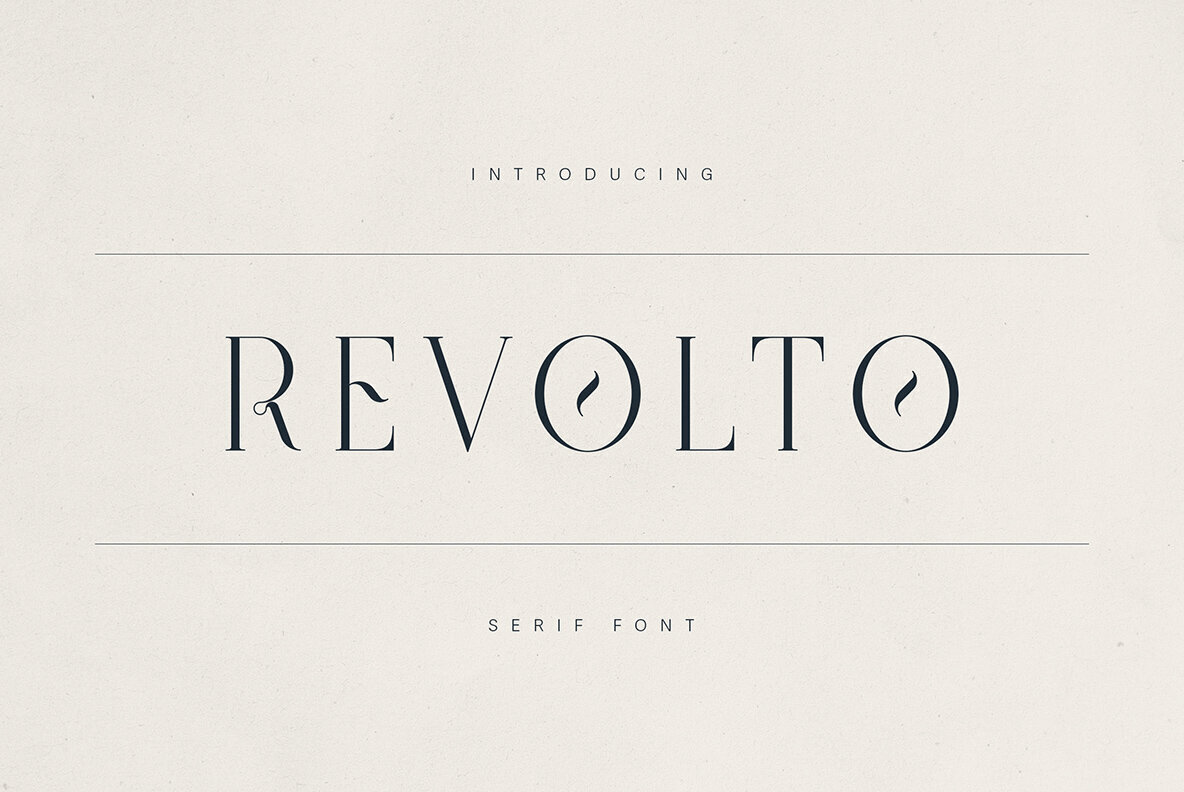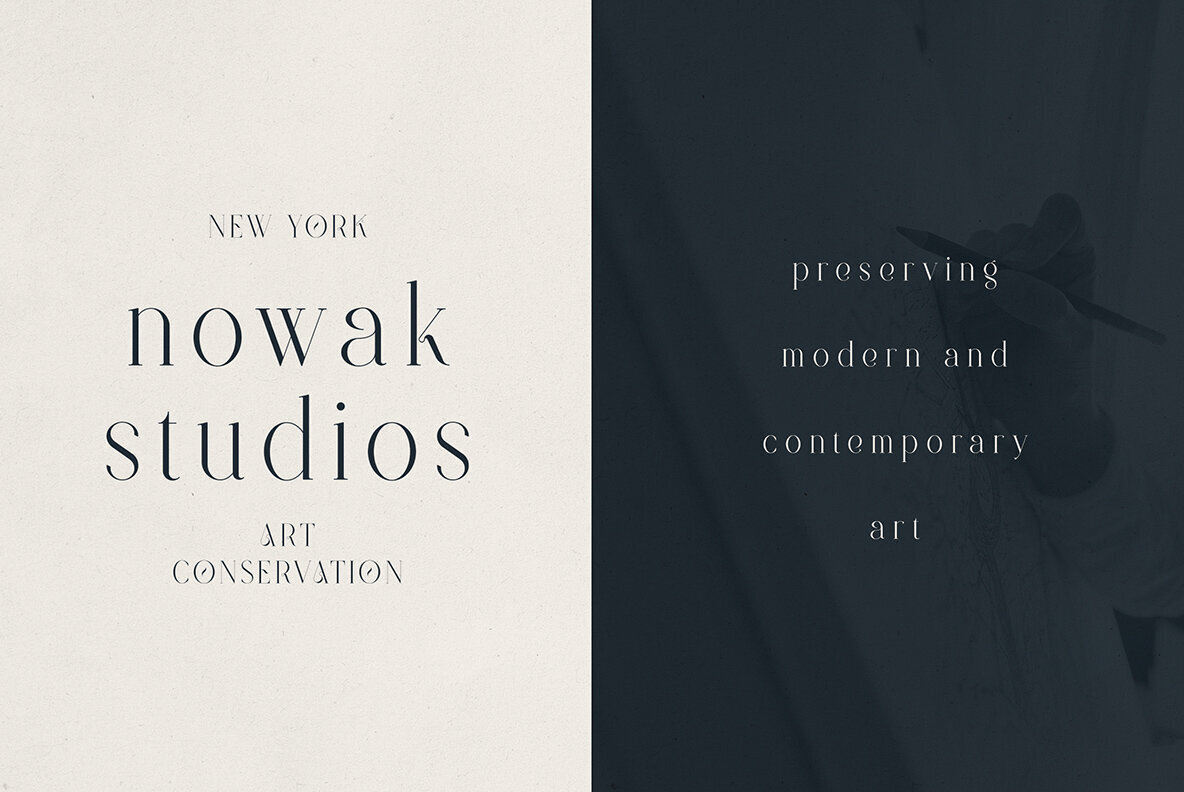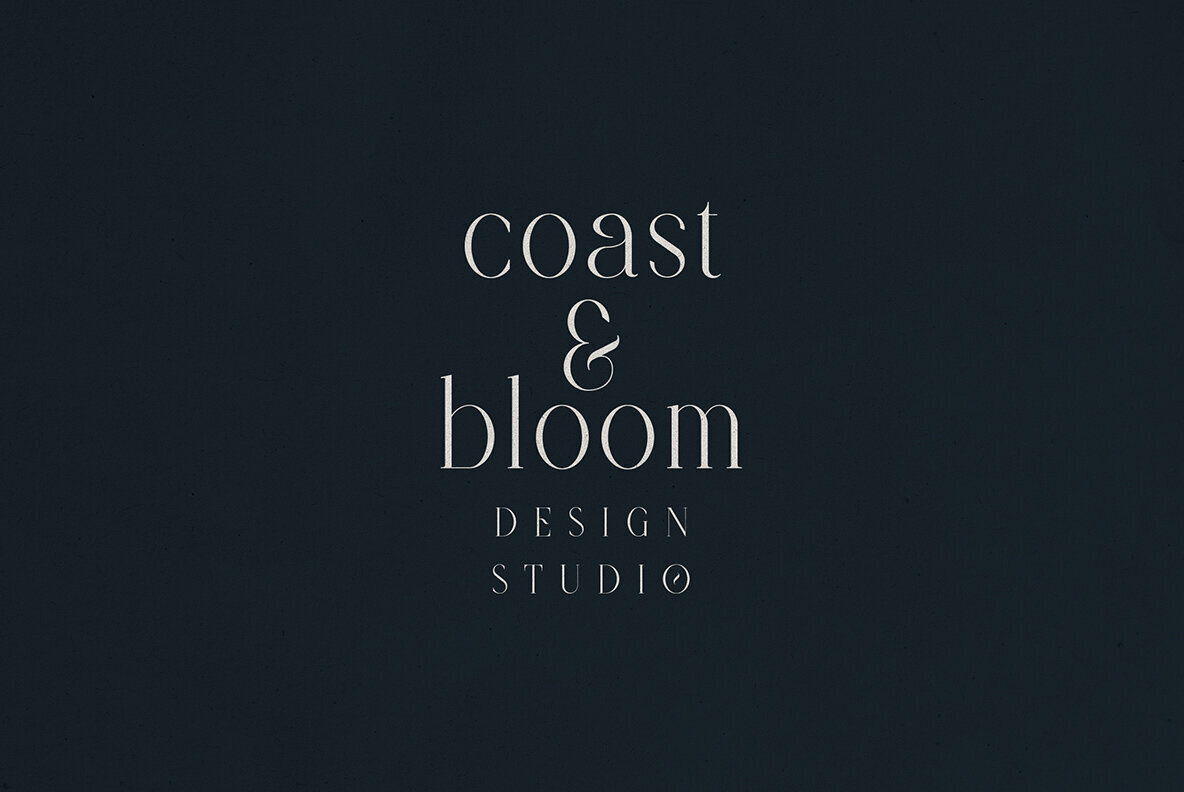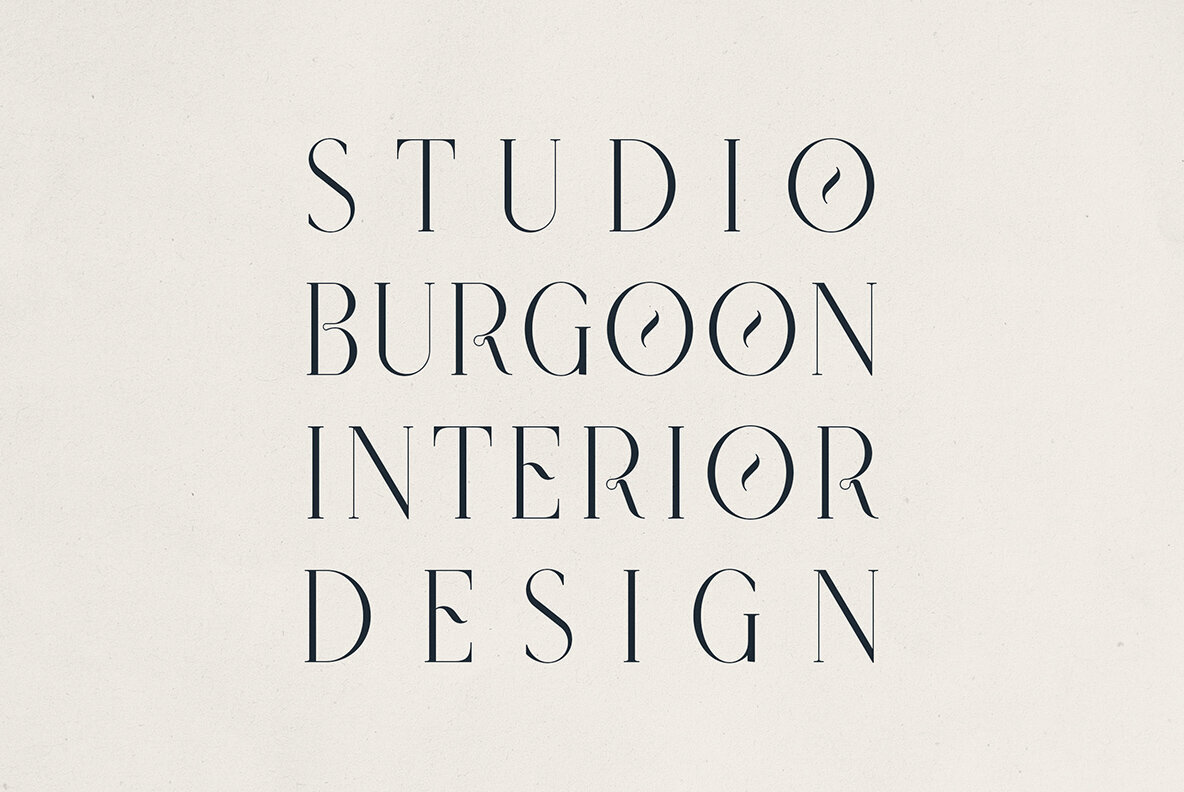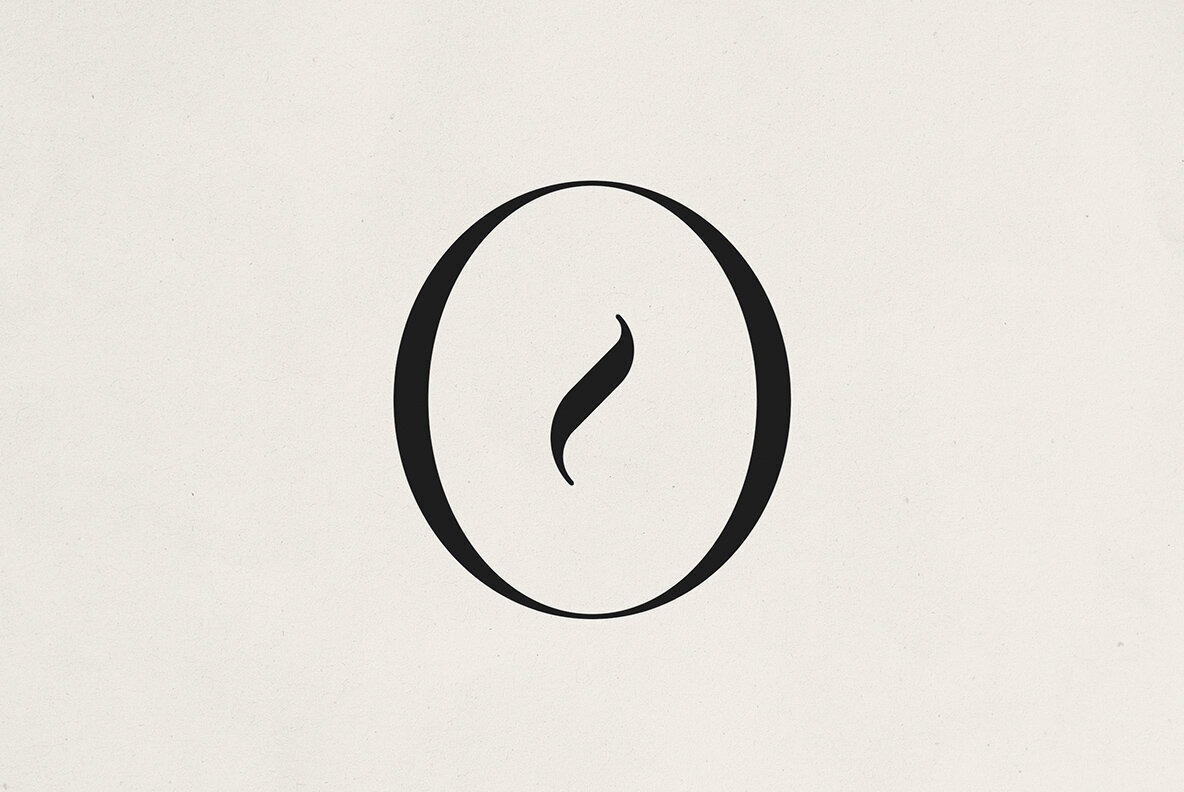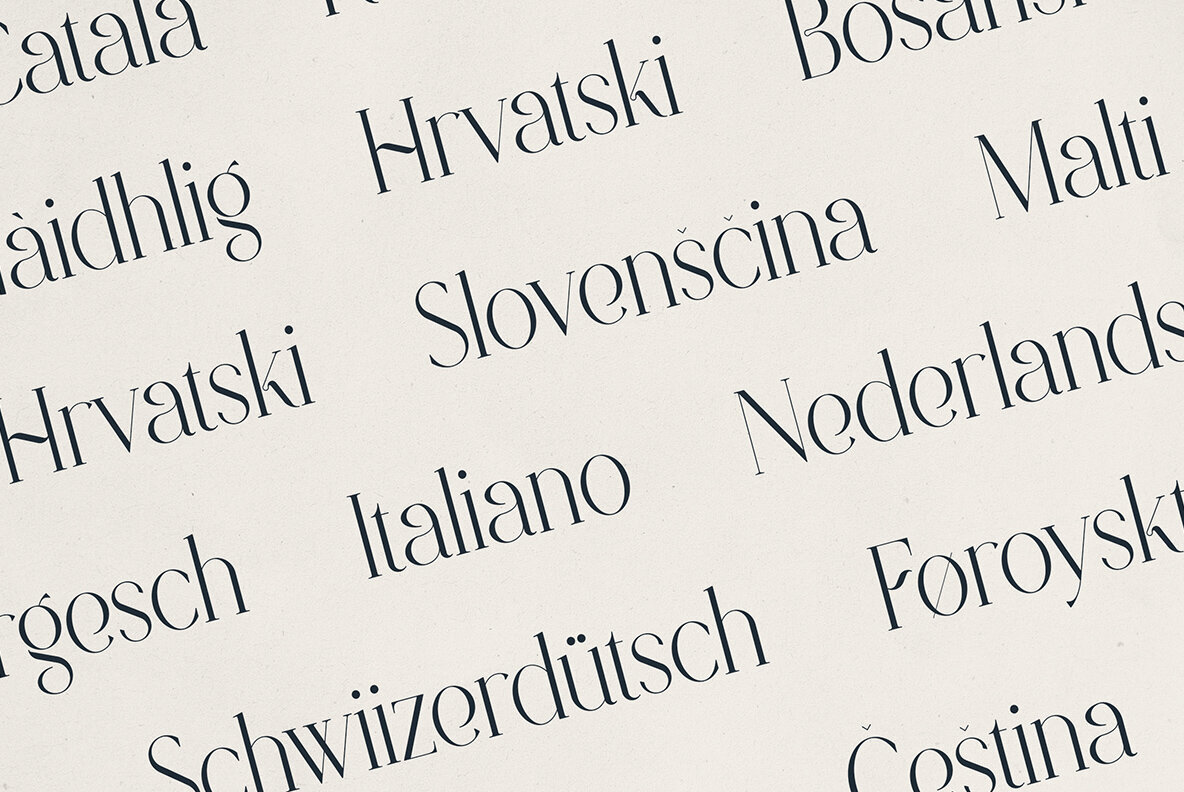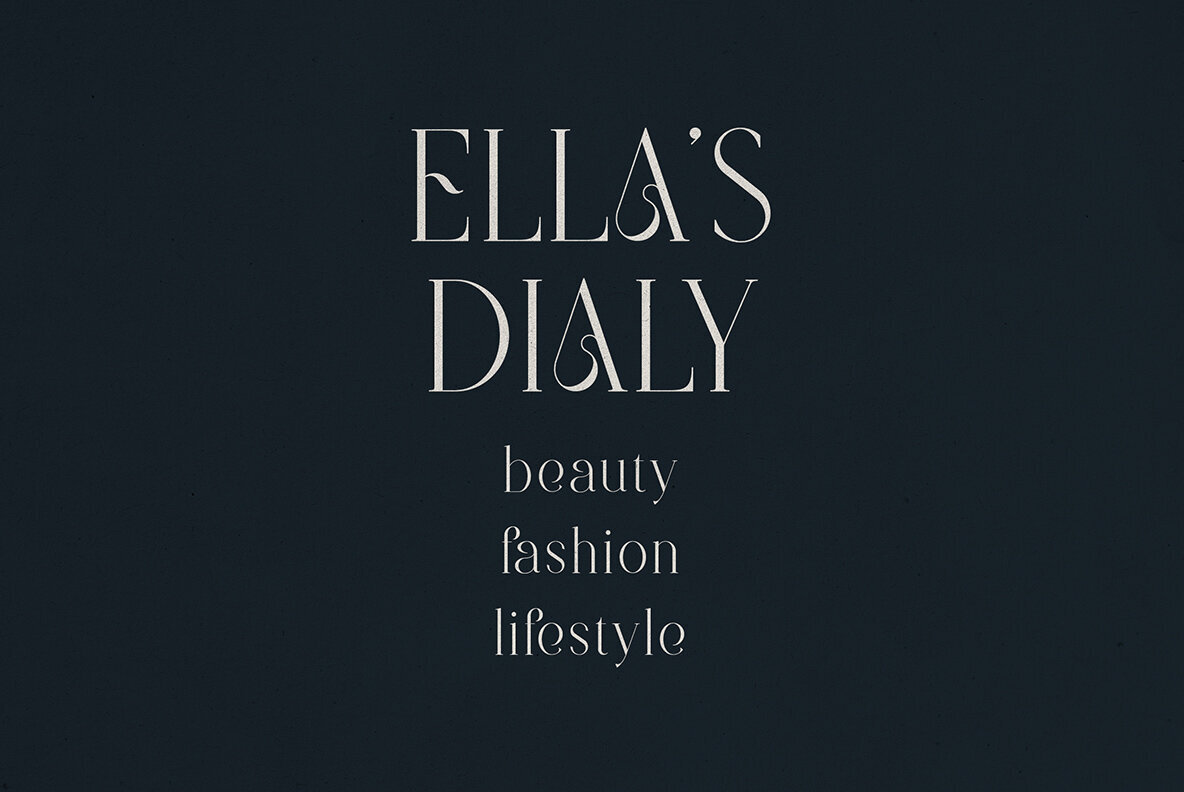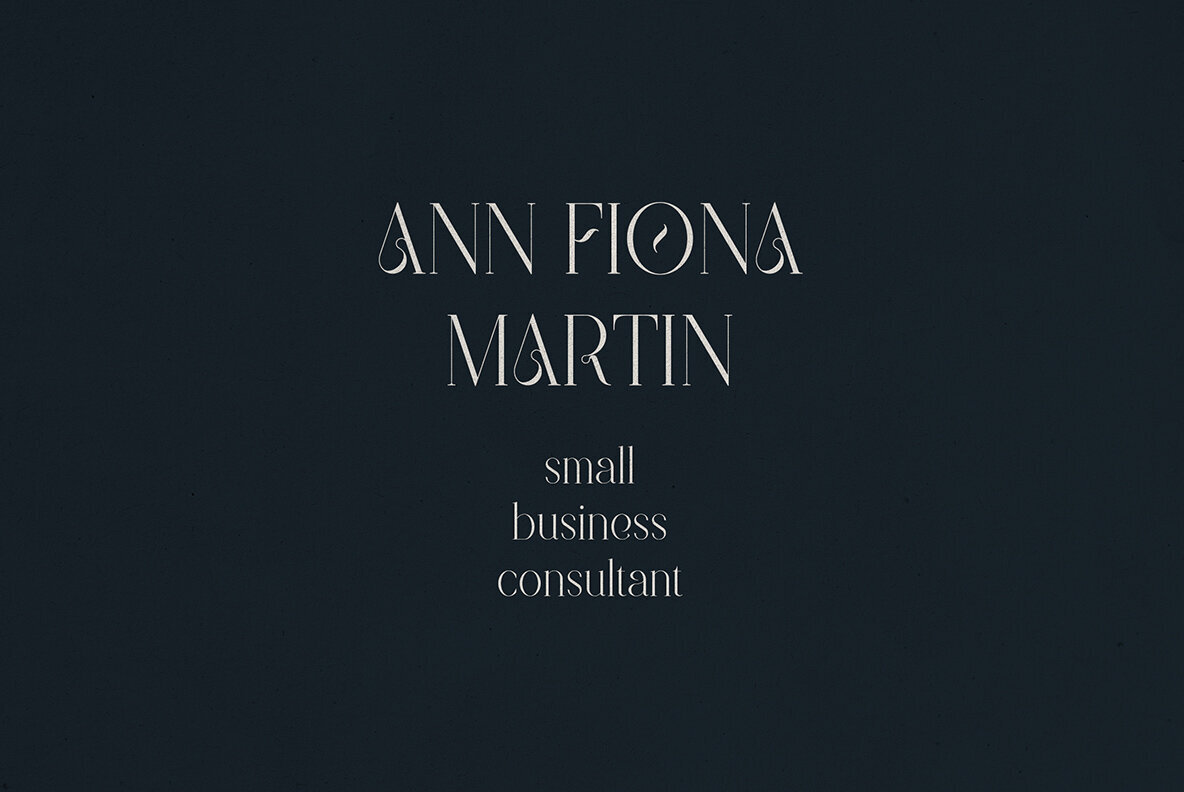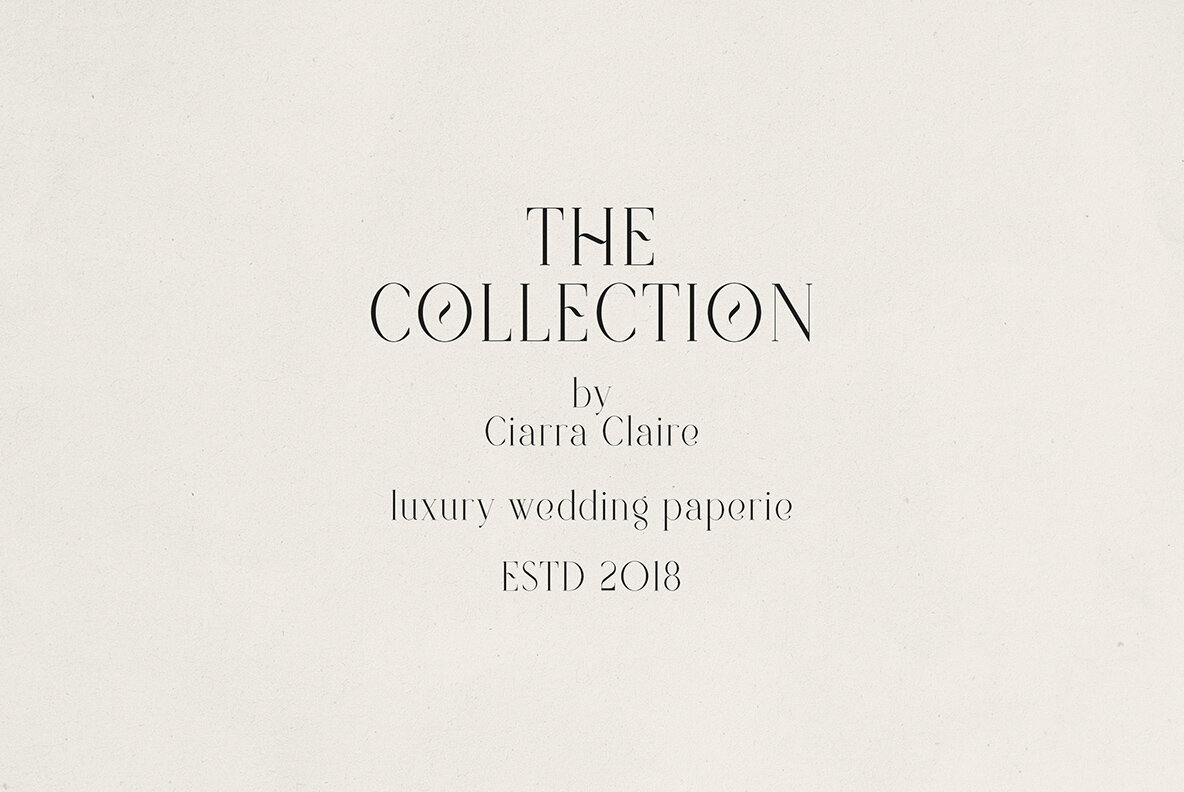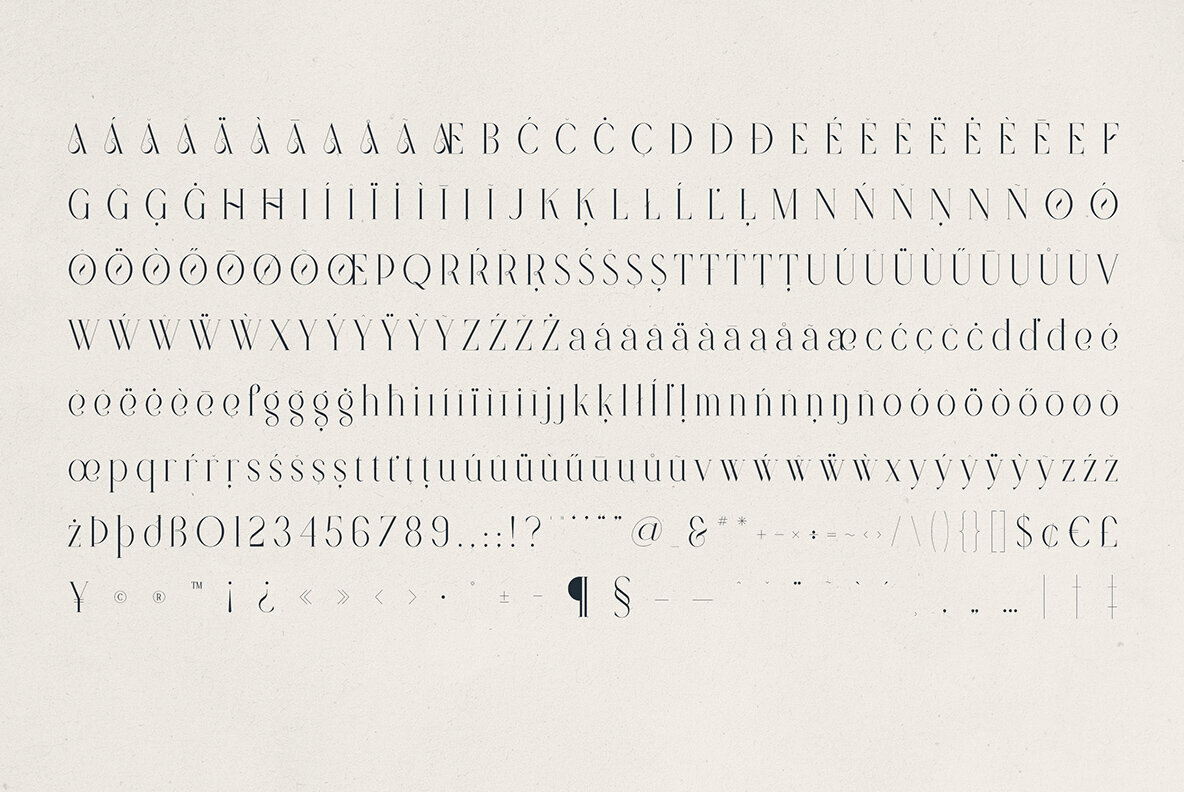
Revolto Font
Revolto Regular
Revolto is a sophisticated and modern display serif font that effortlessly marries timeless elegance with a touch of creative flair. Perfect for premium branding, editorial design, and luxurious creative endeavors, Revolto captivates with its delicate contrast and graceful curves. Why Choose Revolto? This font's artistic balance of classic serif elegance with creative twists adds sophistication and originality to any design. Whether cultivating a boutique brand identity or crafting stylish editorial layouts, Revolto bestows the versatility and flair your work merits.Elegant Display Serif Font with Artistic Flair